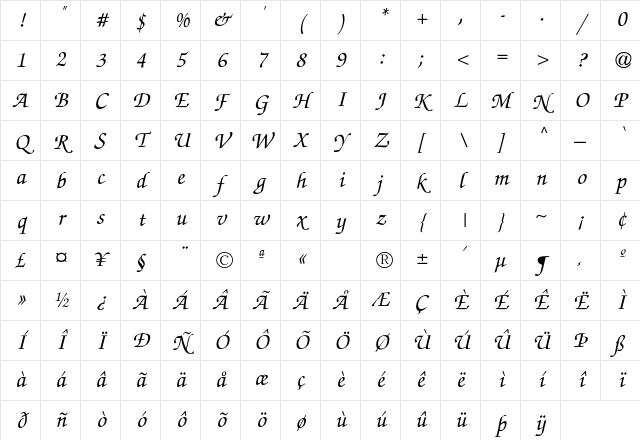
ZapfChancery-MediumItalic Regular
Design Context for ZapfChancery-MediumItalic
ZapfChancery-MediumItalic is a composed and adaptable typeface that performs quietly and consistently across a wide range of design contexts. The slanted form adds forward momentum and visual energy.
Pro Tip: Use ZapfChancery-MediumItalic for emphasis, pull quotes, and subheadings where its slanted energy can add rhythm to the layout.